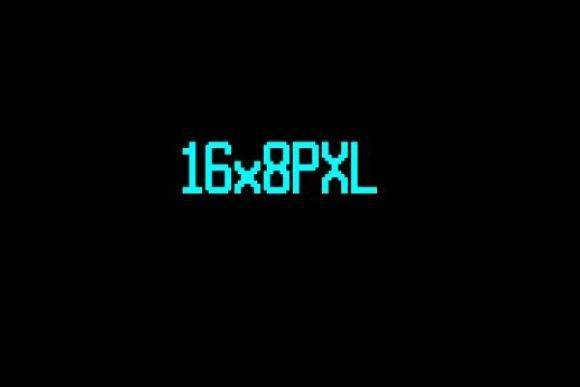
16x8PXL Font for Cricut, Silhouette and Printable Designs
This pixel display font features a structured, 8-bit inspired design optimized for crafting machines and printable design workflows. It's engineered for digital clarity and consistent alignment across both cutting and print platforms.
As a font entity, 16x8PXL provides scalable use across custom text projects, merch layouts, and digital design assets. Its clean, geometric characters are perfect for nostalgic gaming themes, signage, or tech-inspired creations.
Creators using Cricut, Silhouette, or standard print software will find this font easy to integrate, especially for DIY or retro branding work. The versatility of the archipellago font for design projects allows for seamless incorporation into various creative applications, from labels to promotional materials. Whether you're crafting custom invitations or developing eye-catching packaging, this font ensures a professional finish that stands out. Its clean lines and unique character make it ideal for both personal and commercial endeavors.
- Tech-themed t-shirts, signs, and decals
- Pixel art-style printable posters
- Vinyl labels and stickers for Cricut/Silhouette
- Custom gamer tags and retro brand assets
- Pixel grid precision for tech-style design
- Perfect for cutting machines and print software
- Retro appeal with sharp digital readability
Q: What type of font is 16x8PXL?